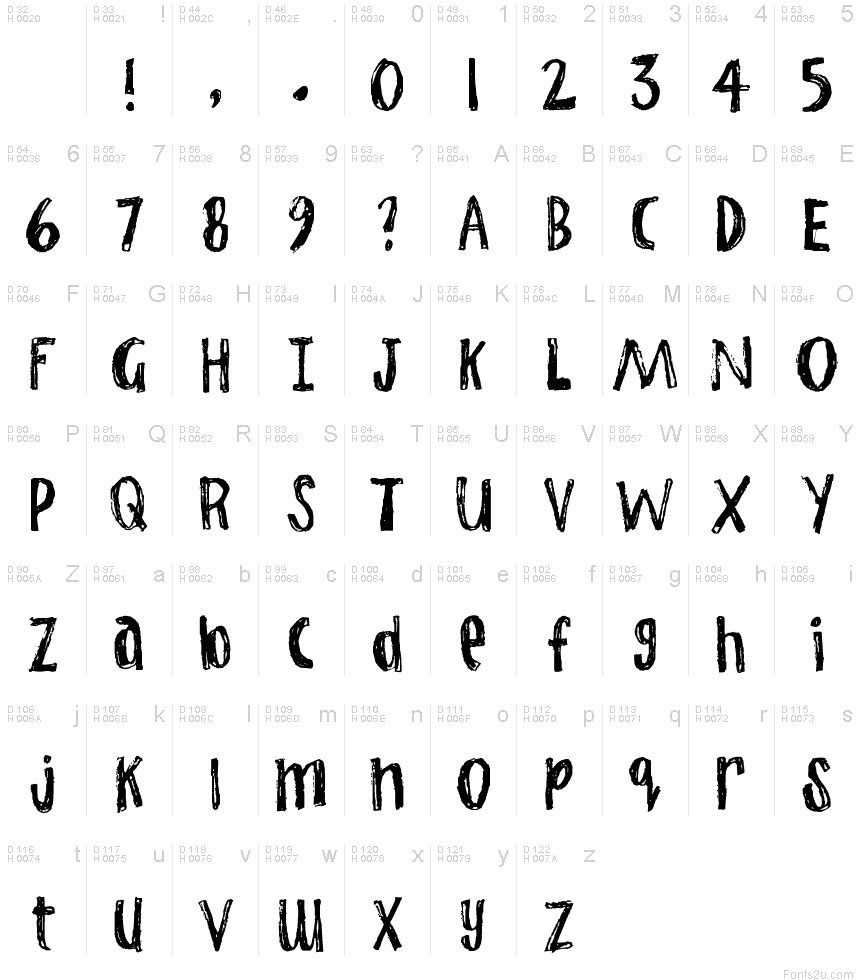
Jump Start Font - Download and install the jump start font for free from ffonts.net. ️ this font has been. Jump start font is a sweet and friendly handwritten font. Jump start font | dafont.com english français español deutsch italiano português. Online fonts — a site about fonts that has tens of categories and thousands of typefaces
Download and install the jump start font for free from ffonts.net. Jump start font is a sweet and friendly handwritten font. Jump start font | dafont.com english français español deutsch italiano português. Online fonts — a site about fonts that has tens of categories and thousands of typefaces ️ this font has been.
️ this font has been. Jump start font is a sweet and friendly handwritten font. Download and install the jump start font for free from ffonts.net. Jump start font | dafont.com english français español deutsch italiano português. Online fonts — a site about fonts that has tens of categories and thousands of typefaces
Jump Start font
Jump start font is a sweet and friendly handwritten font. Download and install the jump start font for free from ffonts.net. Online fonts — a site about fonts that has tens of categories and thousands of typefaces ️ this font has been. Jump start font | dafont.com english français español deutsch italiano português.
Download and install the jump start font for free from ffonts.net. Jump start font | dafont.com english français español deutsch italiano português. Jump start font is a sweet and friendly handwritten font. ️ this font has been. Online fonts — a site about fonts that has tens of categories and thousands of typefaces
Jump Start Font
Jump start font is a sweet and friendly handwritten font. Online fonts — a site about fonts that has tens of categories and thousands of typefaces Download and install the jump start font for free from ffonts.net. Jump start font | dafont.com english français español deutsch italiano português. ️ this font has been.
Jump Start font by Typearound FontRiver
Jump start font | dafont.com english français español deutsch italiano português. Jump start font is a sweet and friendly handwritten font. ️ this font has been. Online fonts — a site about fonts that has tens of categories and thousands of typefaces Download and install the jump start font for free from ffonts.net.
Download and install the jump start font for free from ffonts.net. ️ this font has been. Jump start font | dafont.com english français español deutsch italiano português. Jump start font is a sweet and friendly handwritten font. Online fonts — a site about fonts that has tens of categories and thousands of typefaces
Jump Start font by Typearound FontRiver
️ this font has been. Online fonts — a site about fonts that has tens of categories and thousands of typefaces Jump start font | dafont.com english français español deutsch italiano português. Download and install the jump start font for free from ffonts.net. Jump start font is a sweet and friendly handwritten font.
Jump start font | dafont.com english français español deutsch italiano português. Jump start font is a sweet and friendly handwritten font. Download and install the jump start font for free from ffonts.net. ️ this font has been. Online fonts — a site about fonts that has tens of categories and thousands of typefaces
Jump start font | dafont.com english français español deutsch italiano português. Jump start font is a sweet and friendly handwritten font. ️ this font has been. Online fonts — a site about fonts that has tens of categories and thousands of typefaces Download and install the jump start font for free from ffonts.net.
Jump Start Font Zillion
Jump start font is a sweet and friendly handwritten font. Online fonts — a site about fonts that has tens of categories and thousands of typefaces Jump start font | dafont.com english français español deutsch italiano português. Download and install the jump start font for free from ffonts.net. ️ this font has been.
Jump Start Font Download Fonts4Free
Online fonts — a site about fonts that has tens of categories and thousands of typefaces ️ this font has been. Jump start font | dafont.com english français español deutsch italiano português. Download and install the jump start font for free from ffonts.net. Jump start font is a sweet and friendly handwritten font.
️ this font has been. Jump start font | dafont.com english français español deutsch italiano português. Online fonts — a site about fonts that has tens of categories and thousands of typefaces Jump start font is a sweet and friendly handwritten font.